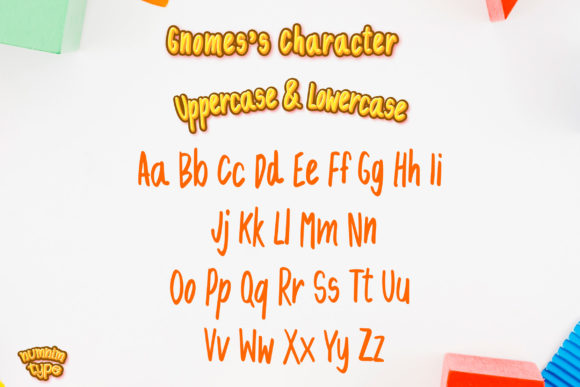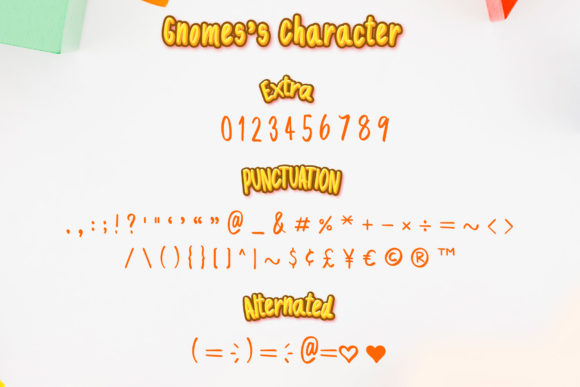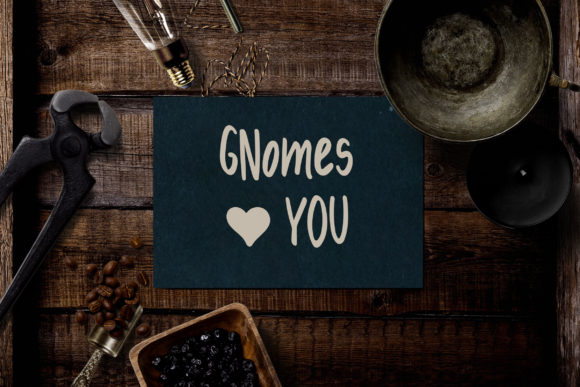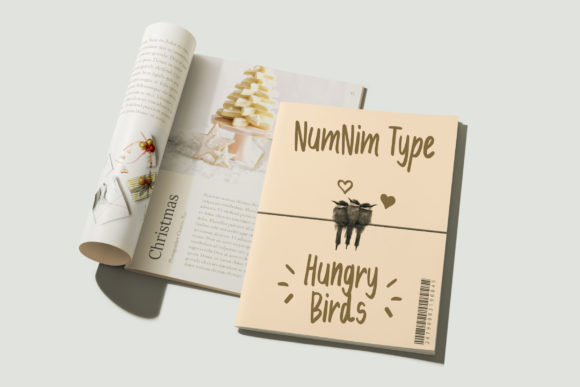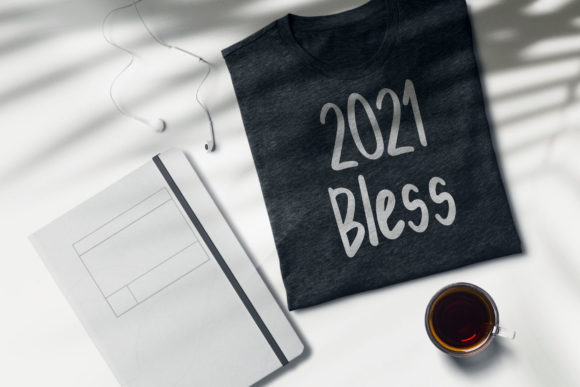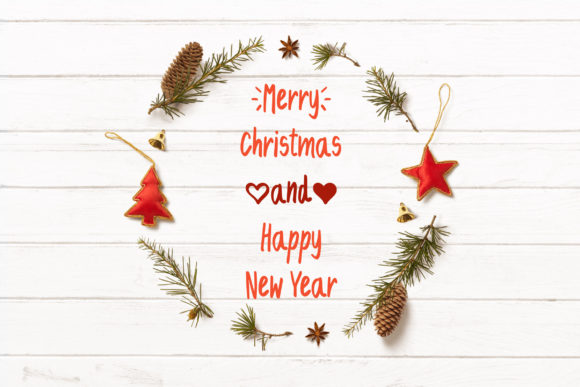
Gnomes Font: Add a Touch of Whimsy to Your Designs
Are you looking for a font that can add a dash of fun and playfulness to your designs? Look no further than Gnomes Font! This bold and joyful handwritten font is perfect for holiday letters, children’s themed designs, and more. With its cute doodle elements and charming personality, Gnomes Font is sure to delight designers and crafters alike.
What Makes Gnomes Font So Special?
Gnomes Font is a unique and eye-catching font that is sure to stand out in any design. Its bold and playful style makes it perfect for projects that require a bit of whimsy and fun. The font features cute doodle elements, including tiny gnomes, animals, and other playful illustrations that add a touch of personality to any text.
Perfect for Holiday Letters and Children’s Designs
One of the best things about Gnomes Font is its versatility. It’s perfect for holiday letters, children’s birthday cards, and other festive designs. The font’s playful style and cute doodle elements make it ideal for designs that require a bit of fun and personality. Whether you’re creating a Christmas card, a birthday invitation, or a children’s book, Gnomes Font is sure to add a touch of magic to your design.
Combining Gnomes Font with Bright Colors
To really make your designs pop, try combining Gnomes Font with bright colors. The font looks amazing with bold and bright hues, and the combination is sure to create a design that’s eye-catching and fun. Whether you’re using Gnomes Font for a children’s design or a holiday project, adding bright colors will take your design to the next level.
Tips for Using Gnomes Font in Your Designs
Here are a few tips for using Gnomes Font in your designs:
• Use Gnomes Font for headlines and titles to add a touch of whimsy and fun to your design.
• Combine Gnomes Font with other fonts to create a unique and eye-catching design.
• Experiment with different colors and textures to add depth and interest to your design.
• Use Gnomes Font for children’s designs, holiday letters, and other projects that require a bit of playfulness and personality.
Gnomes Font: A Great Addition to Any Designer’s Toolbox
Gnomes Font is a great addition to any designer’s toolbox. Its unique and playful style makes it perfect for a wide range of projects, from children’s designs to holiday letters. With its cute doodle elements and charming personality, Gnomes Font is sure to delight designers and crafters alike.
What You Can Create with Gnomes Font
The possibilities are endless when it comes to creating with Gnomes Font! Here are a few ideas to get you started:
• Holiday letters and cards
• Children’s birthday invitations and party decorations
• Children’s book illustrations and designs
• Fun and playful posters and flyers
• Whimsical and eye-catching logos and branding materials
In conclusion, Gnomes Font is a bold and joyful handwritten font that’s perfect for designers and crafters who want to add a touch of whimsy and fun to their designs. With its cute doodle elements and charming personality, Gnomes Font is sure to delight audiences of all ages. Whether you’re creating holiday letters, children’s designs, or other projects that require a bit of playfulness and personality, Gnomes Font is a great choice.